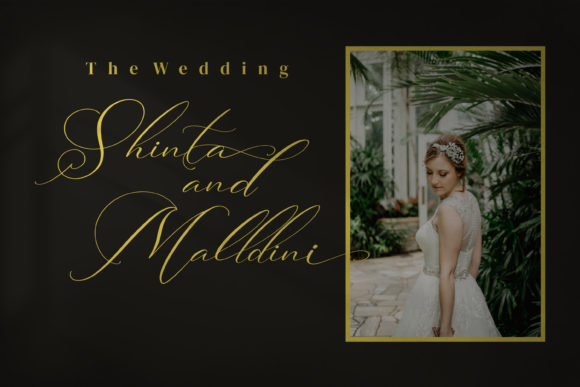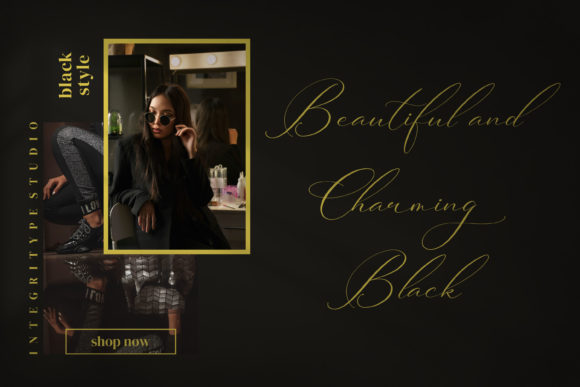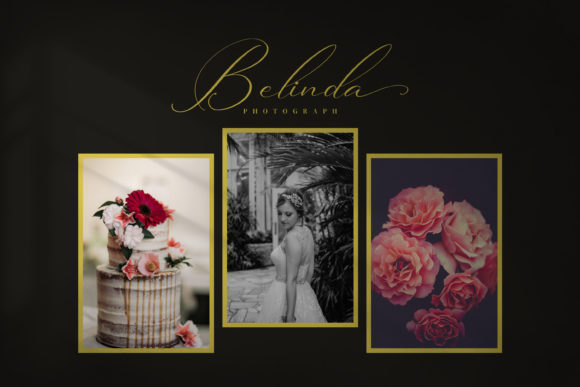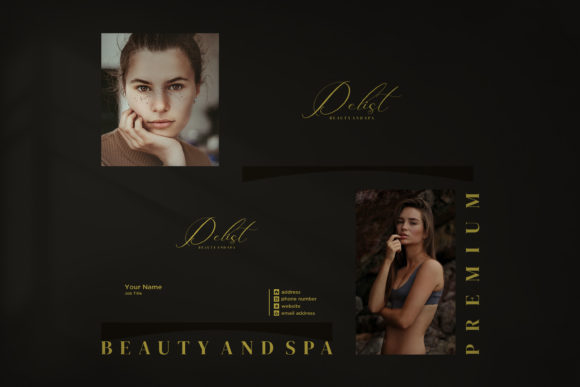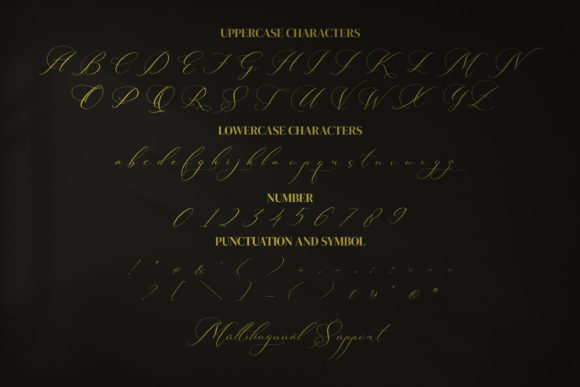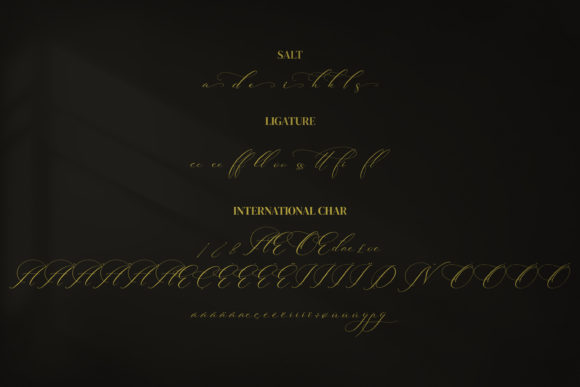
Alysthia Font: Elevate Your Designs with Elegance and Sophistication
Alysthia is a stunning script font that exudes refinement and luxury, making it the perfect choice for designers and crafters looking to add a touch of class to their projects. With its elegant and modern aesthetic, Alysthia can be used to create a wide range of designs, from logos and branding materials to invitations, stationery, wedding designs, social media posts, and more.
The Beauty of Alysthia Font
Alysthia’s beauty lies in its intricate details and flowing lines, which give it a sophisticated and high-end feel. The font’s refined script style is perfect for creating designs that require a level of elegance and poise, such as luxury brand logos, wedding invitations, and high-end product packaging.
One of the standout features of Alysthia is its versatility. The font can be used in a variety of contexts, from digital designs to print materials, and can be easily customized to suit different styles and preferences. Whether you’re looking to create a bold and eye-catching design or a more subtle and understated one, Alysthia has the flexibility to adapt to your needs.
Uses for Alysthia Font
Alysthia’s uses are endless, and its applications can be seen in a wide range of design fields. Here are just a few examples of how you can use Alysthia to elevate your designs:
• Logos and Branding: Alysthia’s elegant and refined style makes it perfect for creating luxury brand logos, company names, and taglines.
• Invitations and Stationery: Use Alysthia to create beautiful wedding invitations, save-the-date cards, and other stationery items that require a touch of elegance.
• Wedding Designs: Alysthia is a popular choice for wedding designs, including wedding programs, menus, and place cards.
• Social Media Posts: Add a touch of sophistication to your social media posts with Alysthia, perfect for businesses and individuals looking to elevate their online presence.
• Product Packaging: Use Alysthia to create luxurious product packaging that stands out on store shelves.
Why Choose Alysthia Font?
So why choose Alysthia over other script fonts? Here are just a few reasons why Alysthia stands out:
• Unique and Exclusive: Alysthia’s unique design ensures that your projects will stand out from the crowd.
• Elegant and Refined: Alysthia’s elegant and refined style makes it perfect for high-end designs that require a level of sophistication.
• Versatile: Alysthia can be used in a variety of contexts, from digital designs to print materials.
Tips for Using Alysthia Font
To get the most out of Alysthia, here are a few tips to keep in mind:
• Pair with Other Fonts: Alysthia pairs well with other fonts, including sans-serif and serif fonts.
• Experiment with Colors: Alysthia looks great in a variety of colors, from metallic gold and silver to rich jewel tones.
• Use for Headings and Titles: Alysthia is perfect for headings and titles, adding a touch of elegance and sophistication to your designs.
Alysthia is a stunning script font that offers a level of elegance and sophistication that’s hard to find in other fonts. With its refined and luxurious aesthetic, Alysthia is perfect for designers and crafters looking to create high-end designs that stand out from the crowd. Whether you’re looking to create logos, branding materials, invitations, or social media posts, Alysthia is the perfect choice.